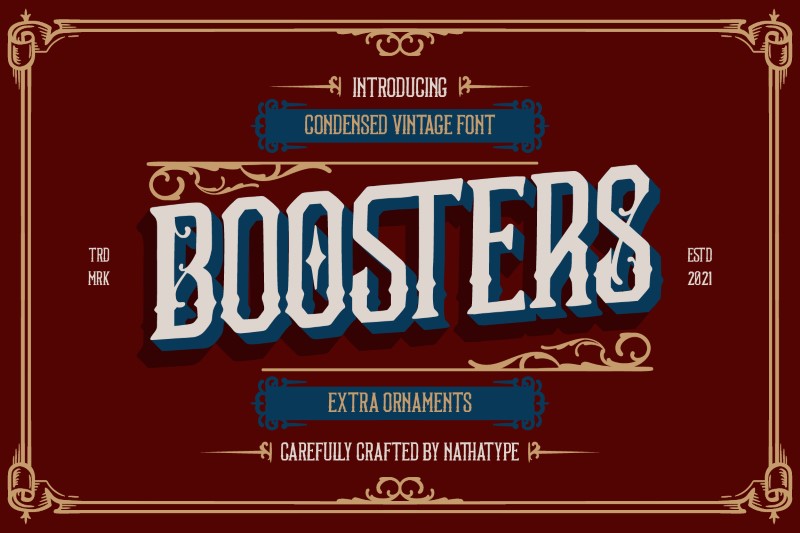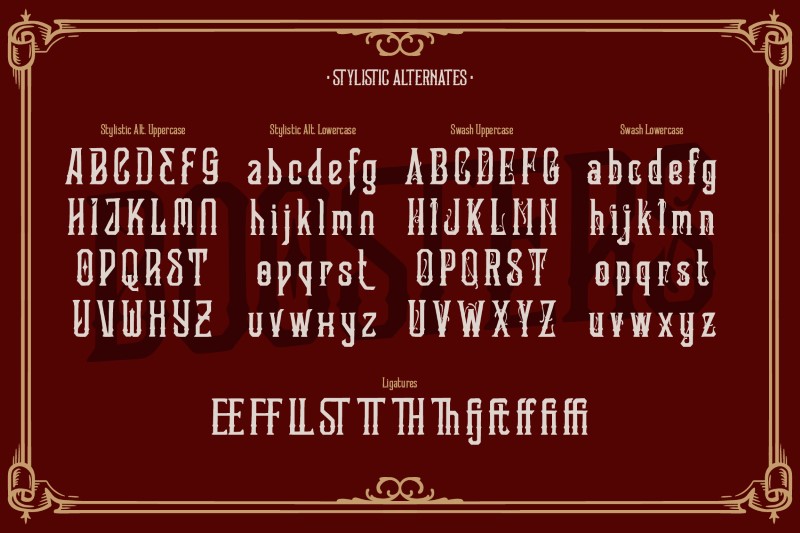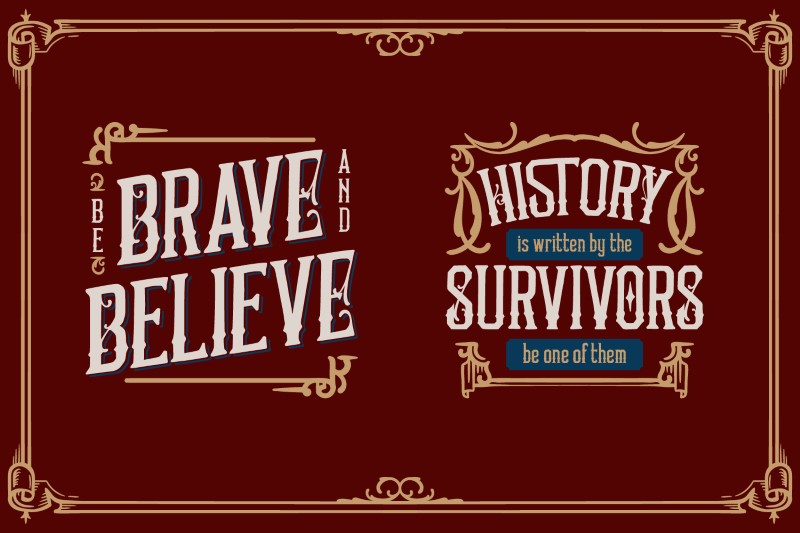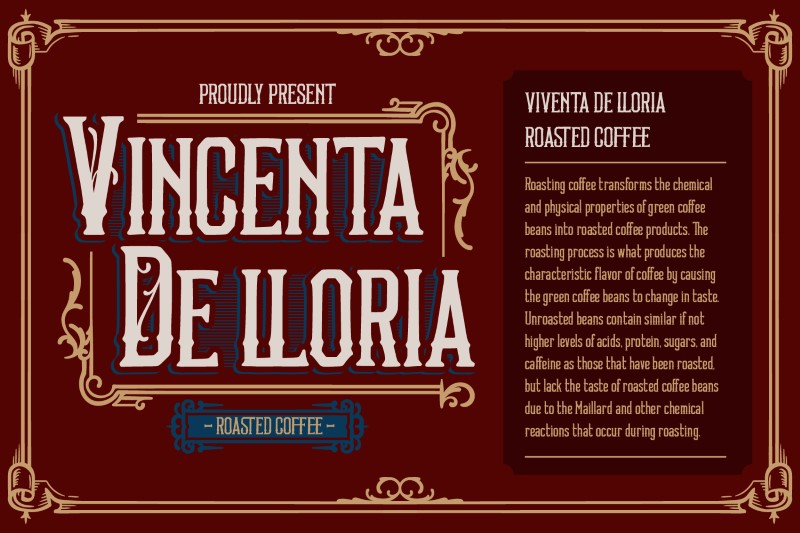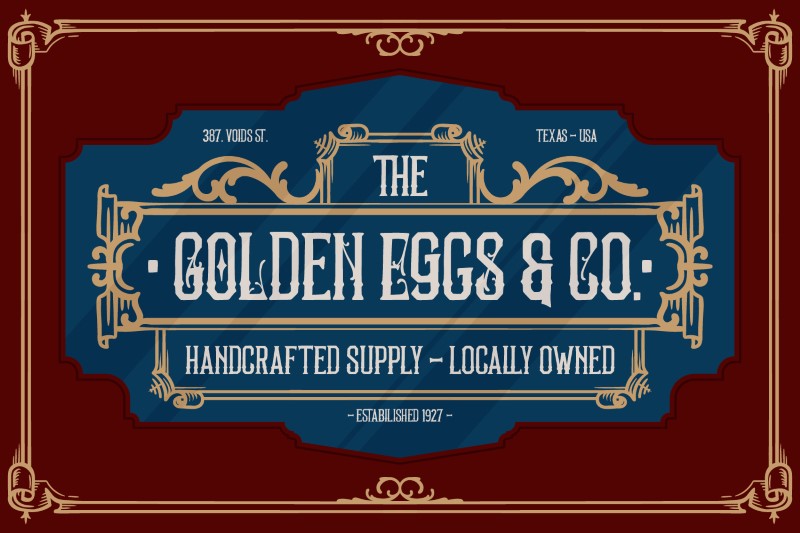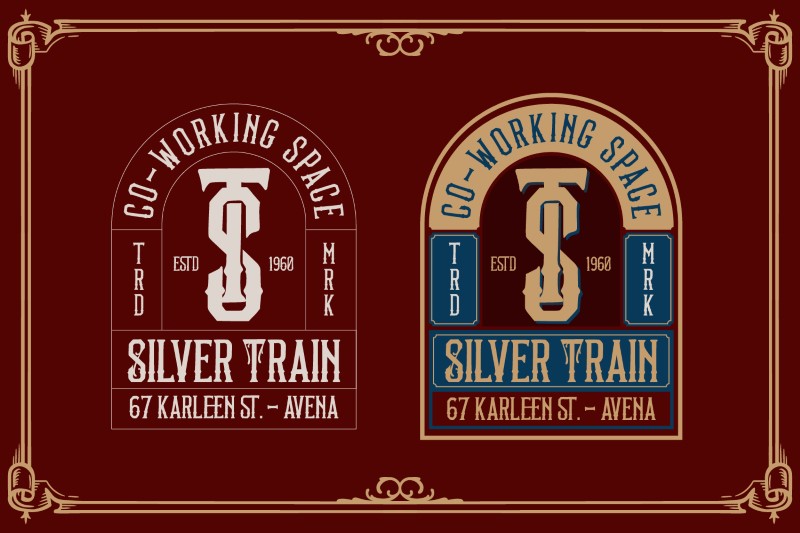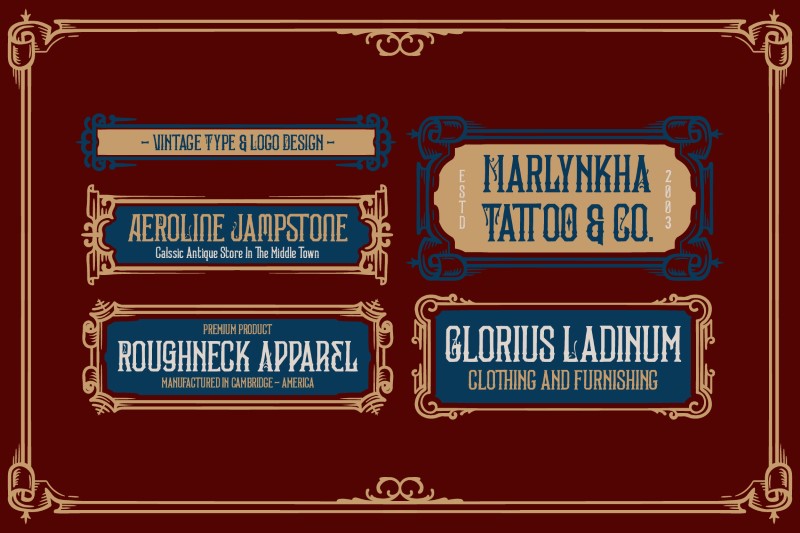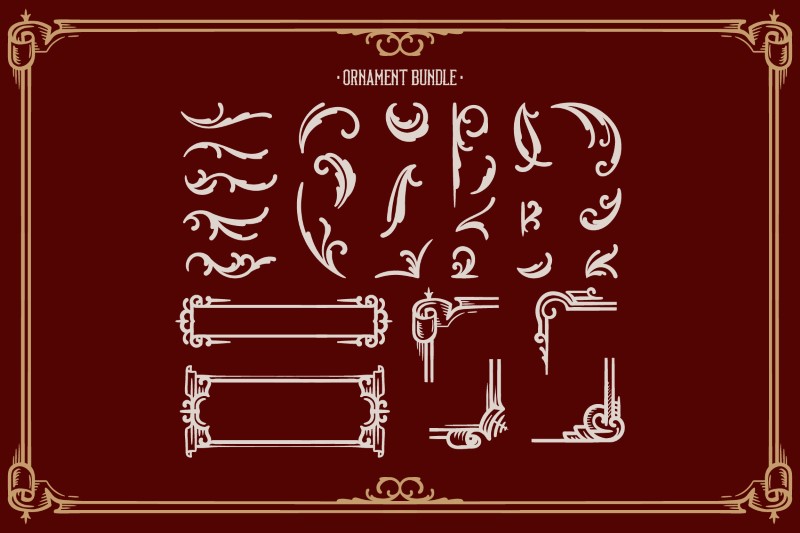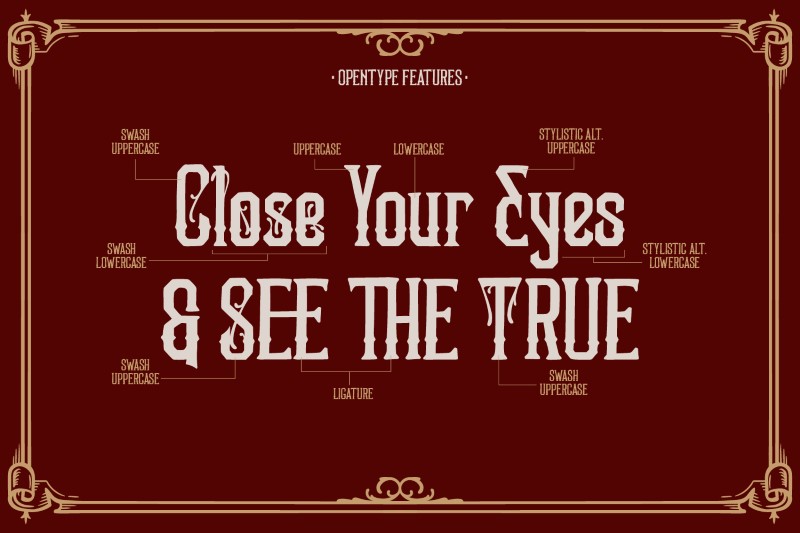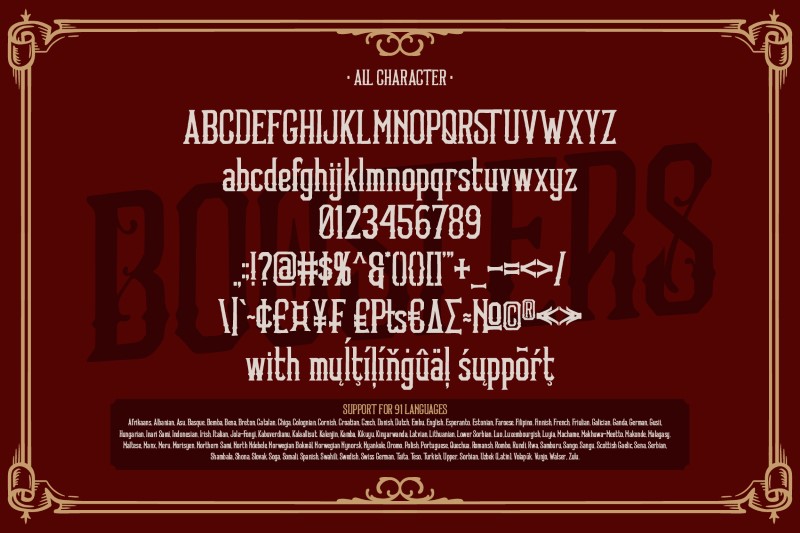
Boosters
Ready to enhance your branding? Looking for “something” that’ll make your audience go WOW and clients get on board immediately? Boosters Vintage Font  is the answer.
Boosters vintage font is a typeface that is made all characters in uppercase. An excellent choice to add the right amount of retro touch. This typeface with artistic style looks very interesting for loads of different projects and promotions.
Features :
• Ligatures
• Swashes
• Stylistic Set
• Bonus Ornament
• Numerals and Punctuations
Boosters fits in headlines, logos, posters, flyers, branding materials, print media, editorial layouts, and many more. Find out more ways to use this font by taking a look at the font preview.